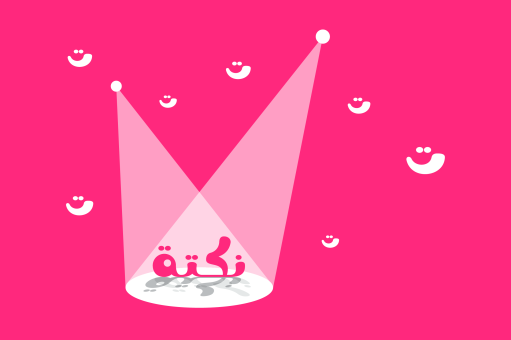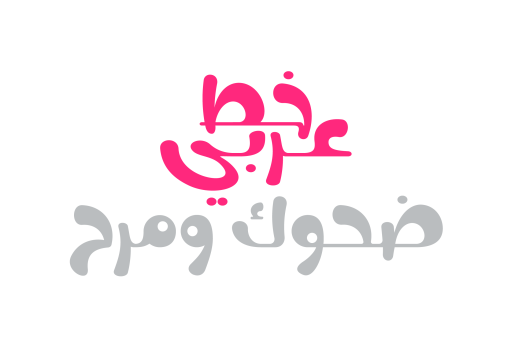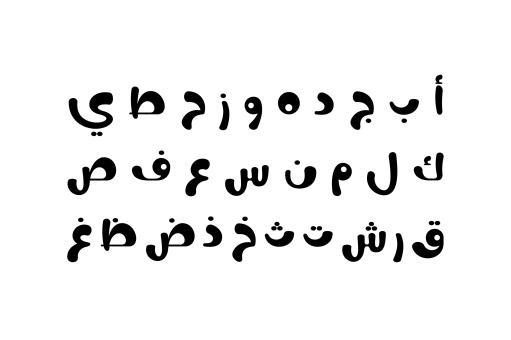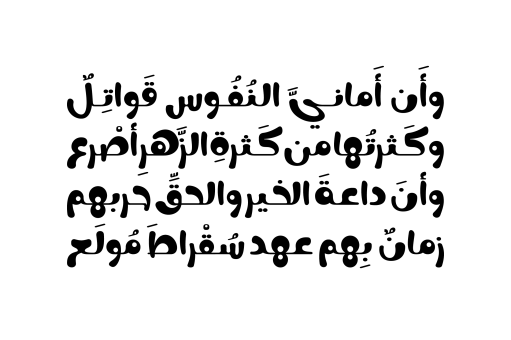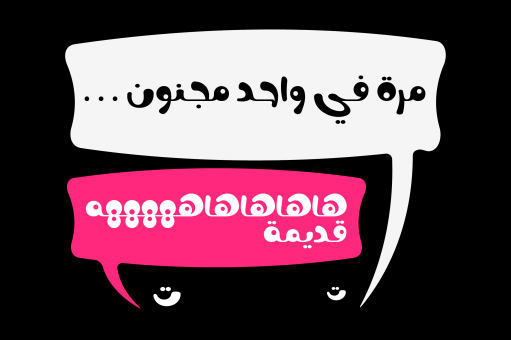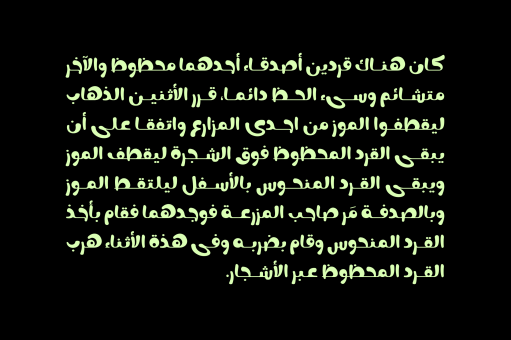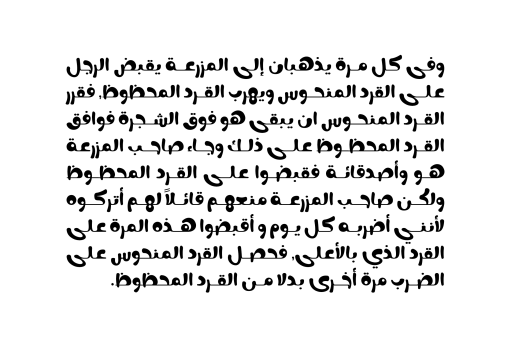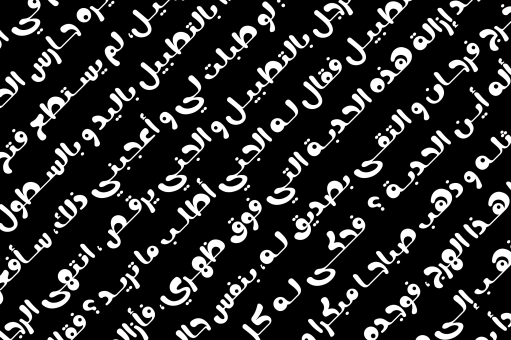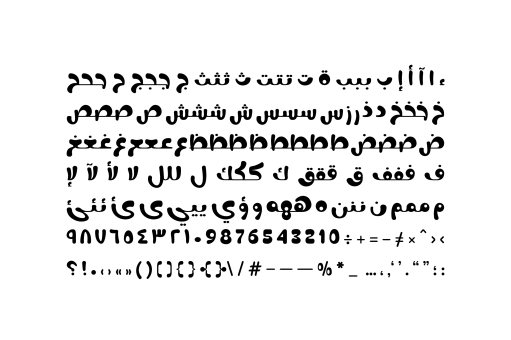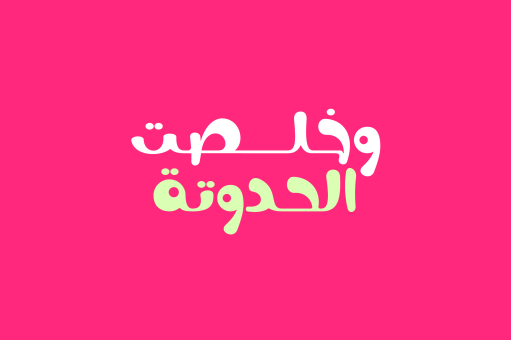
Nokta
Nokta (which is the Arabic word for Joke) is an Arabic font with humorous design that suits all types of casual titling for web , print and mobile applications.